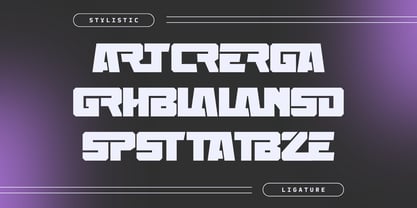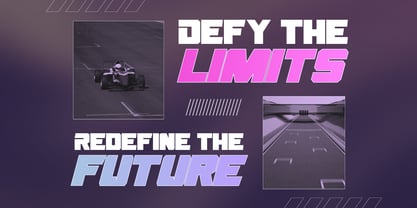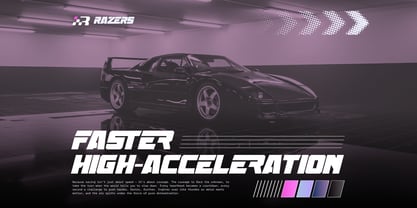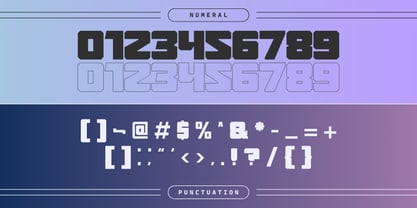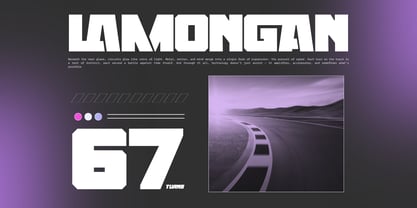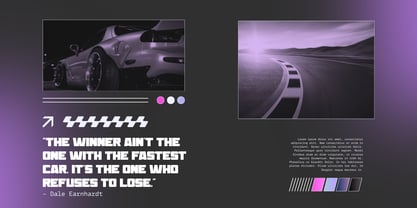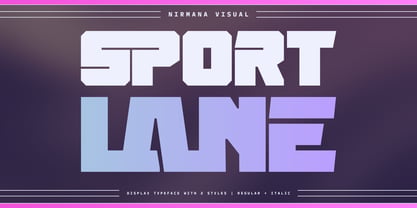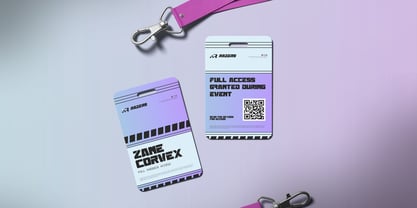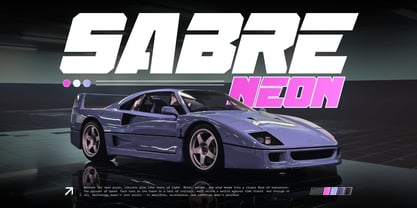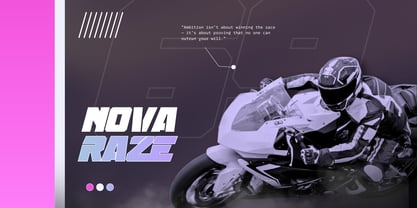
Sport Lane
by Nirmana Visual
The Sport Lane Font Family was designed by Sigit Dwipa and published by Nirmana Visual. Sport Lane contains 2 styles and family package options. More about this family
Sport Lane is a dynamic racing sport font designed for speed and impact. Featuring Regular and Italic styles, it captures the energy of motion with sleek lines and bold geometry. Perfect for logo design, motorsport branding, posters, and merchandise, Sport Lane gives every word a sense of power and performance. Its italic version enhances the fast-paced aesthetic, making it ideal for any project that demands a modern and energetic racing feel.
Designers: Sigit Dwipa
Foundry: Nirmana Visual